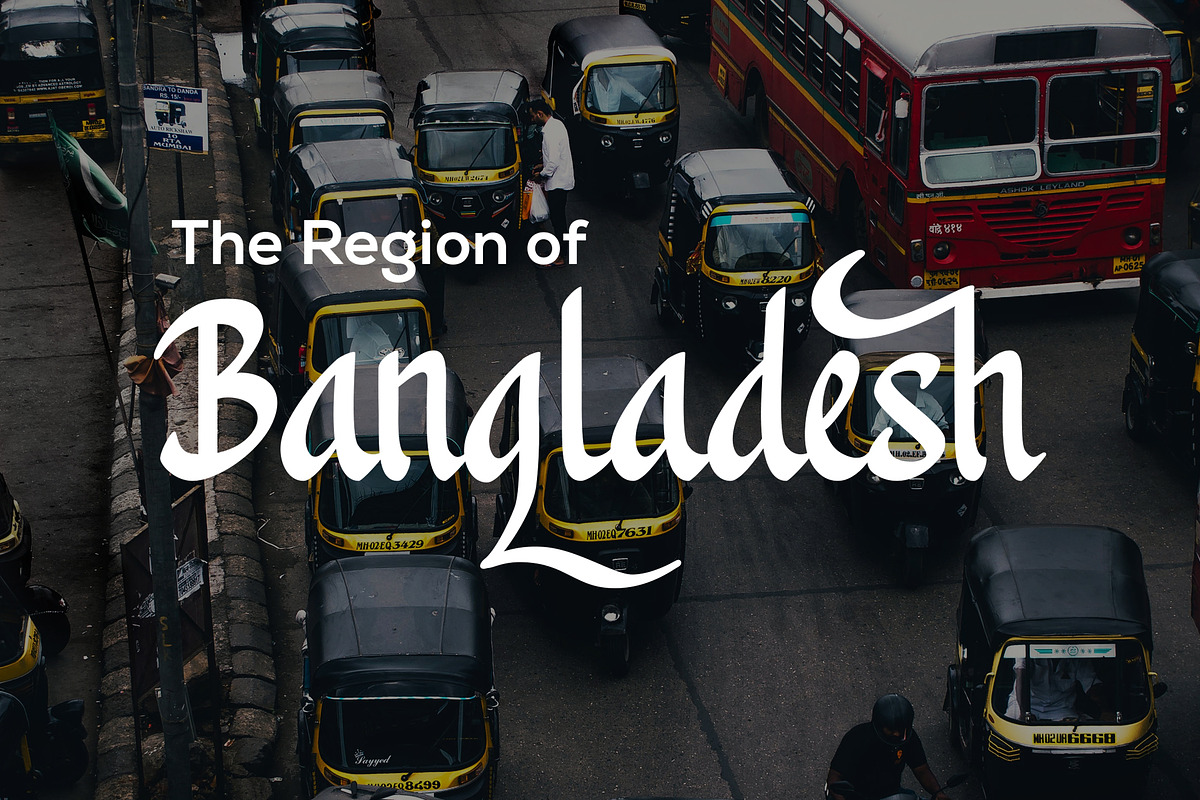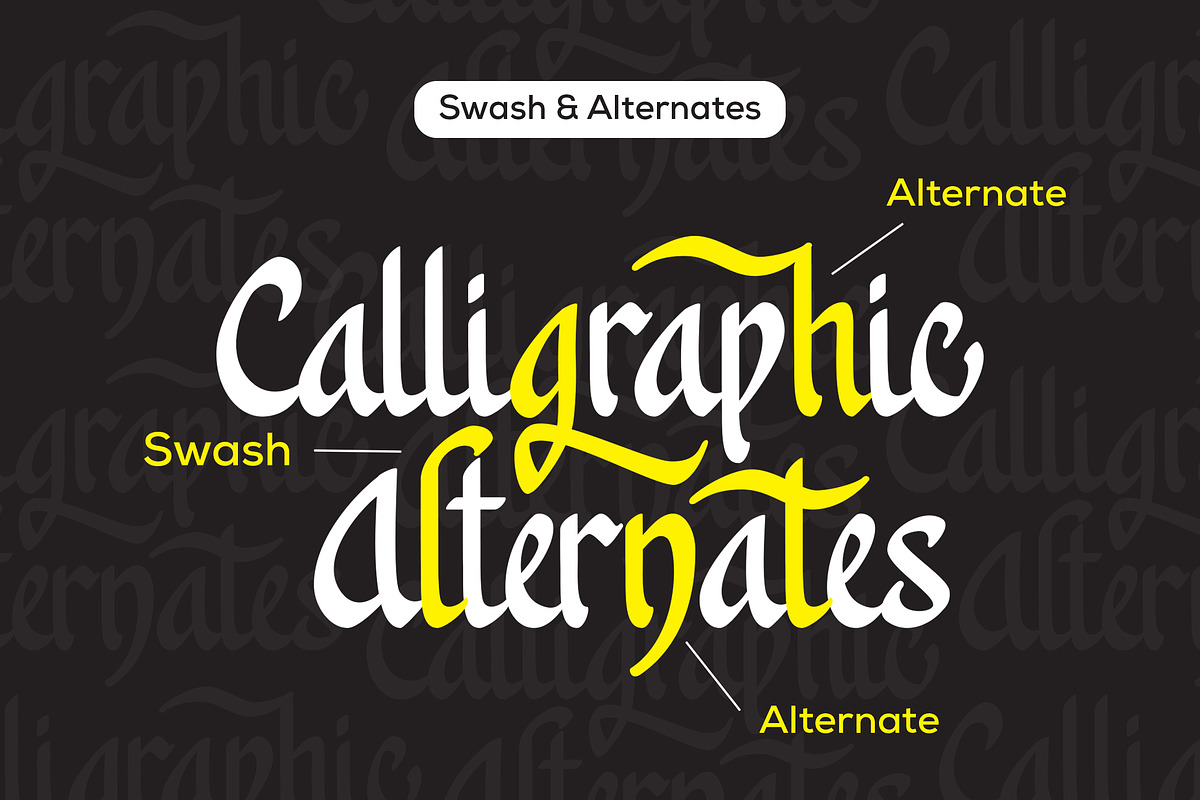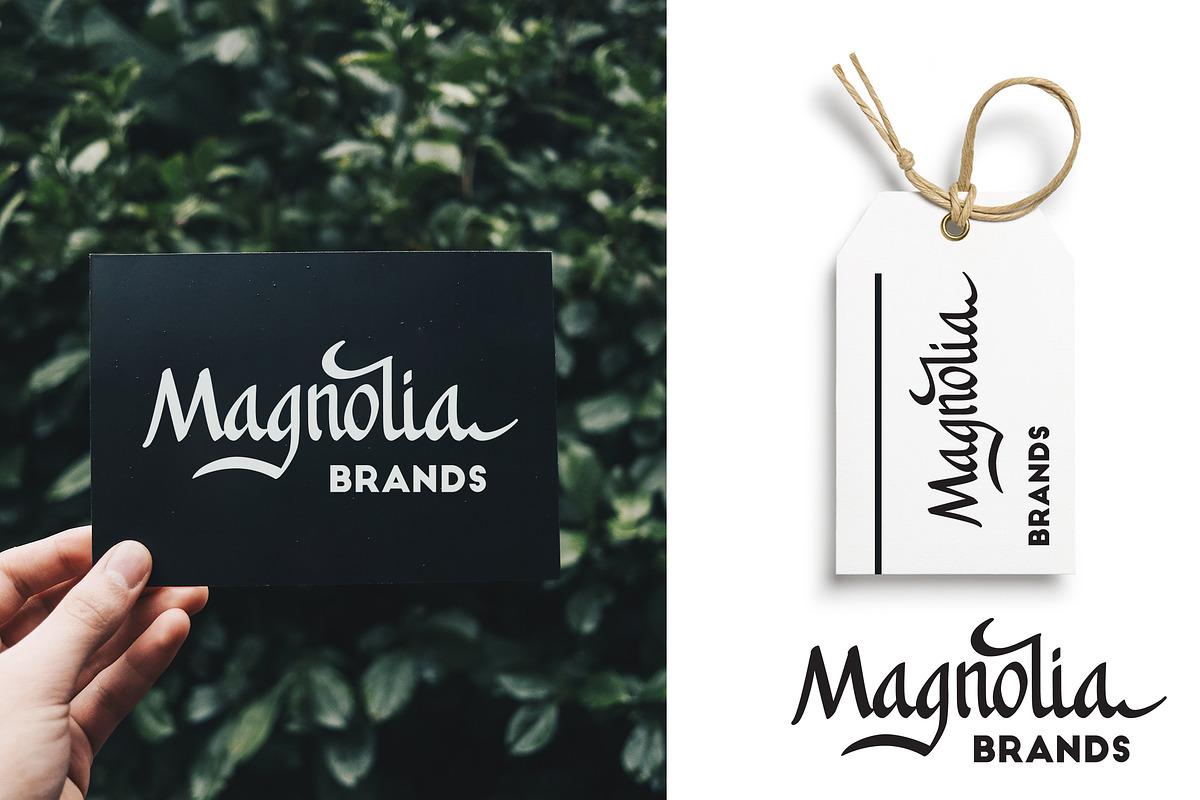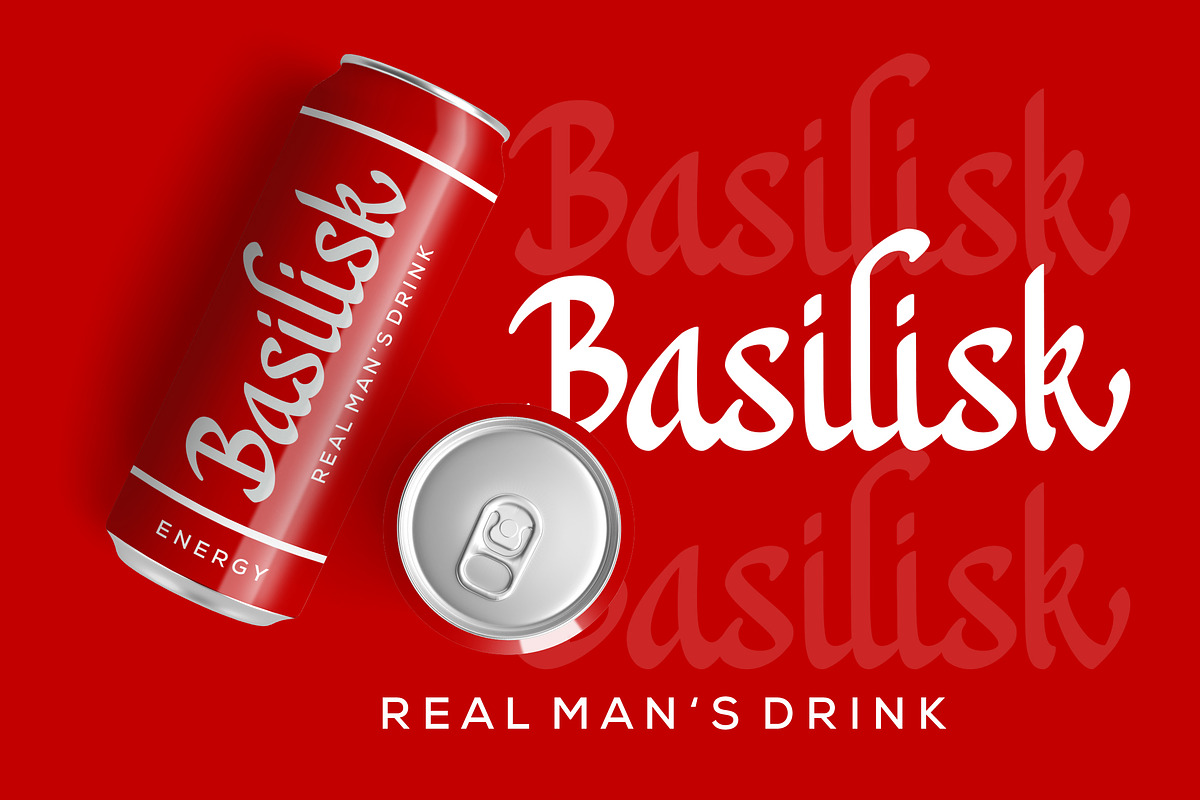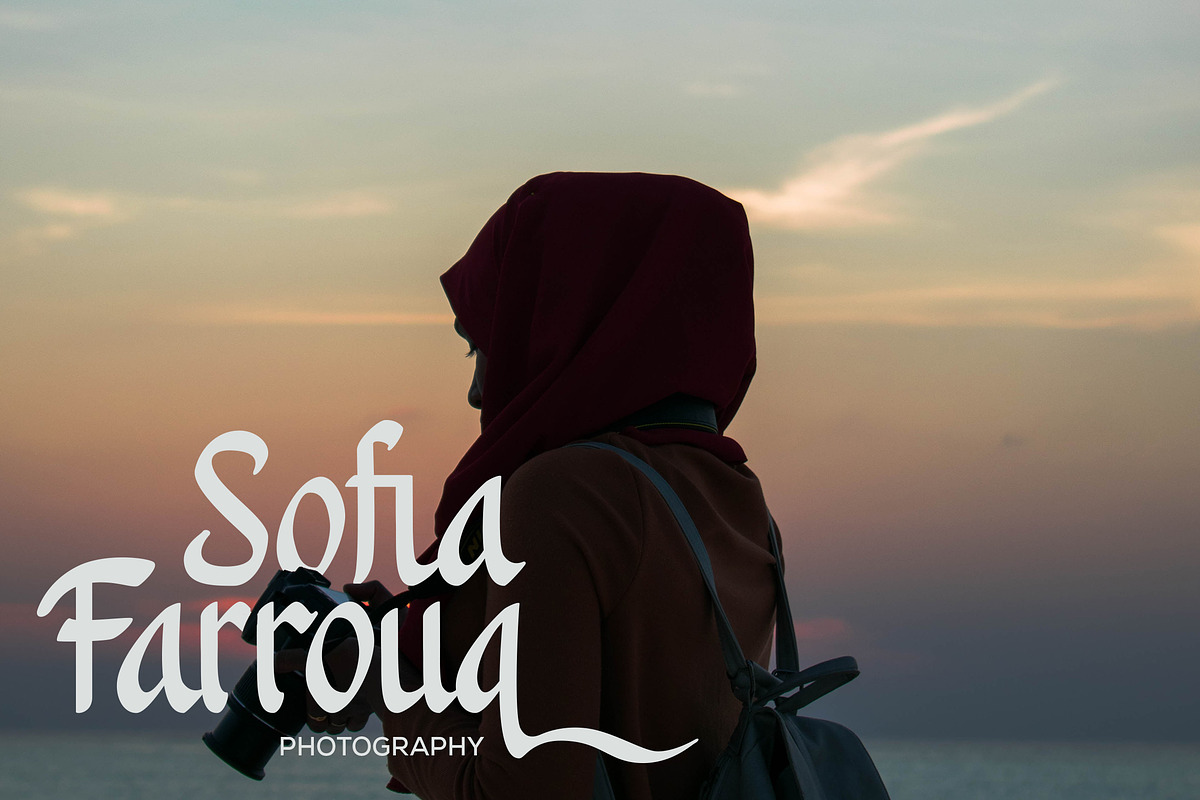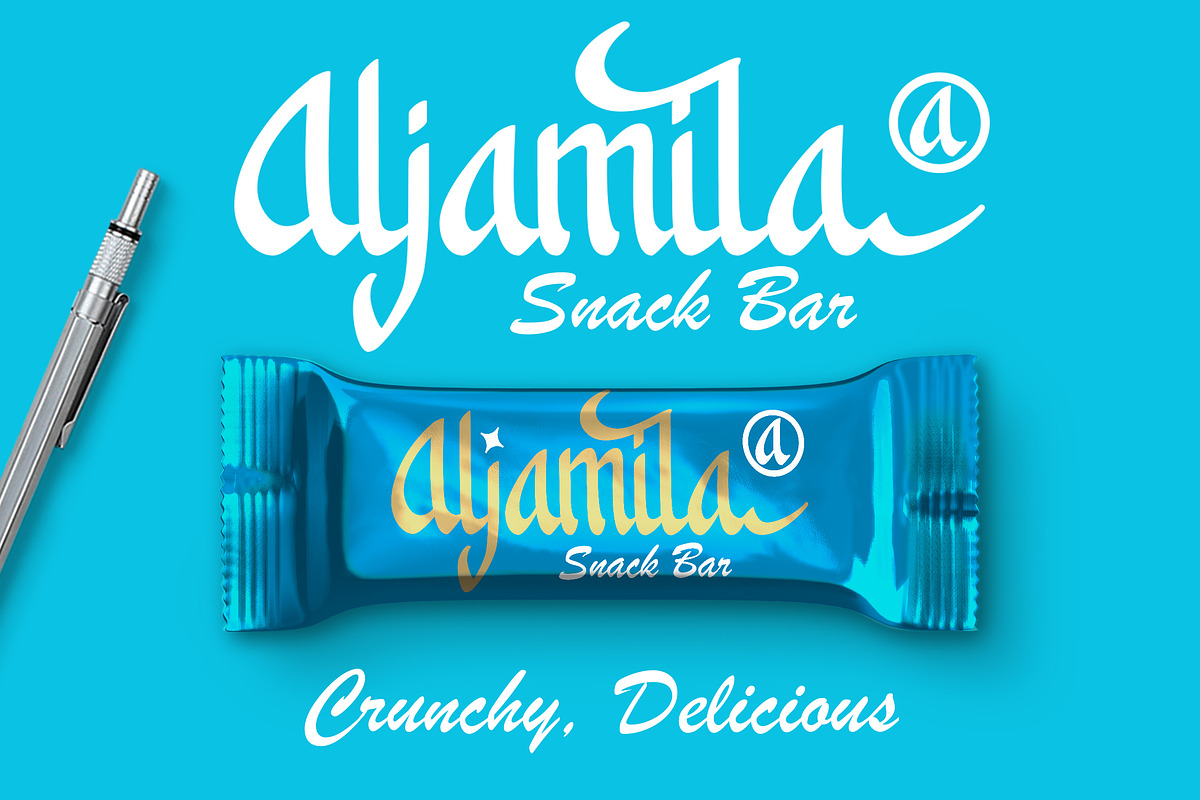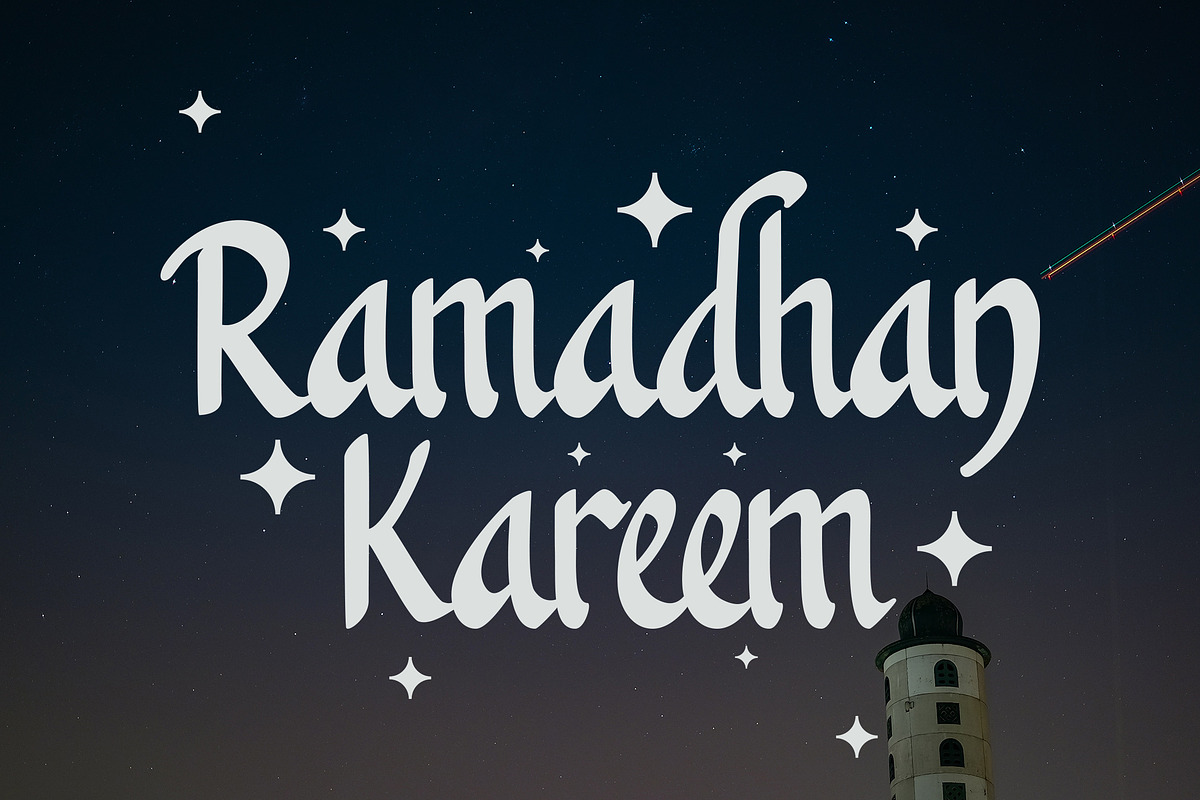
Khanaya - Serif Script Font
"Khanaya" is a font display that is made by hand, inspired by classic posters.
comes with uppercase, lowercase, numerals, punctuations and so many variations on each character include OpenType alternates, common ligatures and also additional swash to let you customize your designs. Perfect to use for Logotype, Letterhead, Poster, Apparel Design, Label and etc.